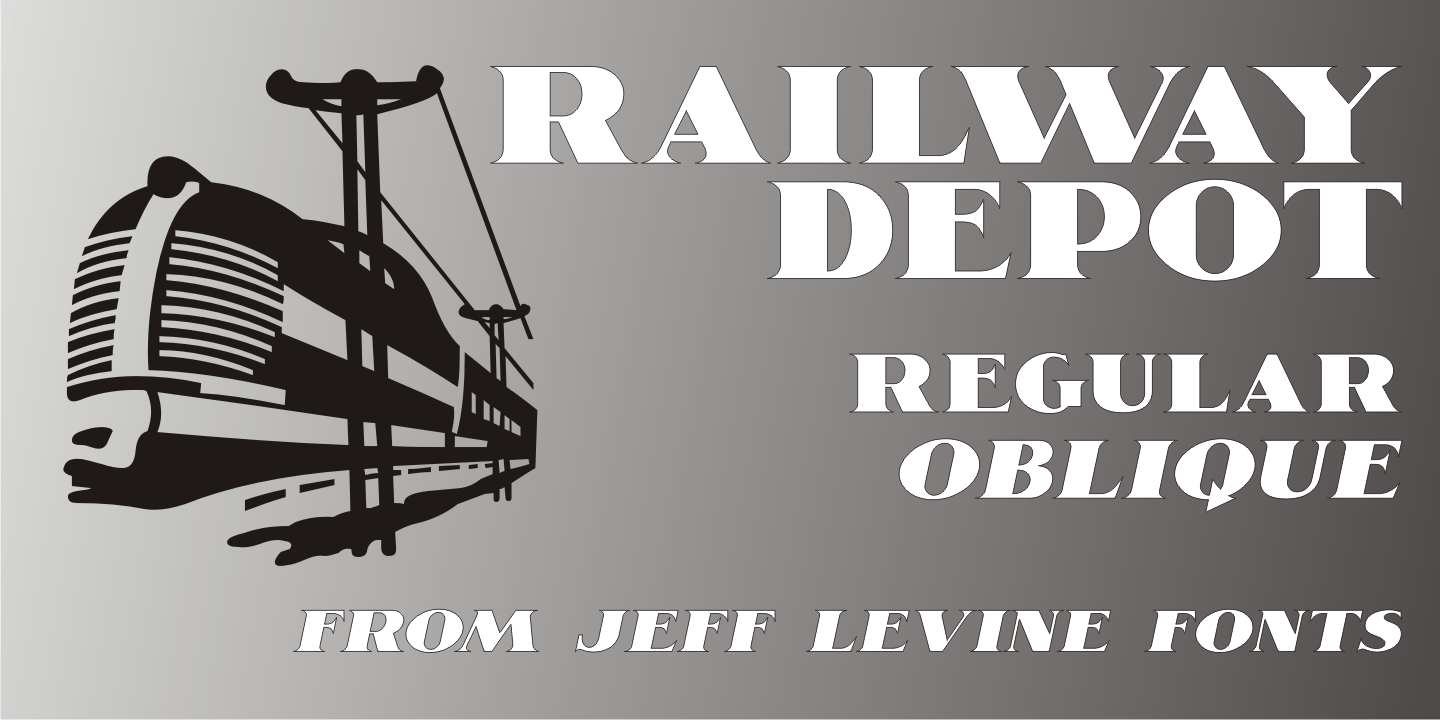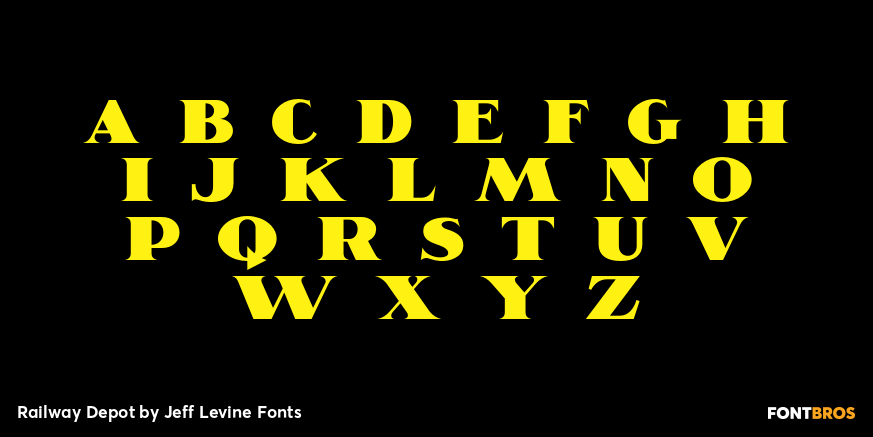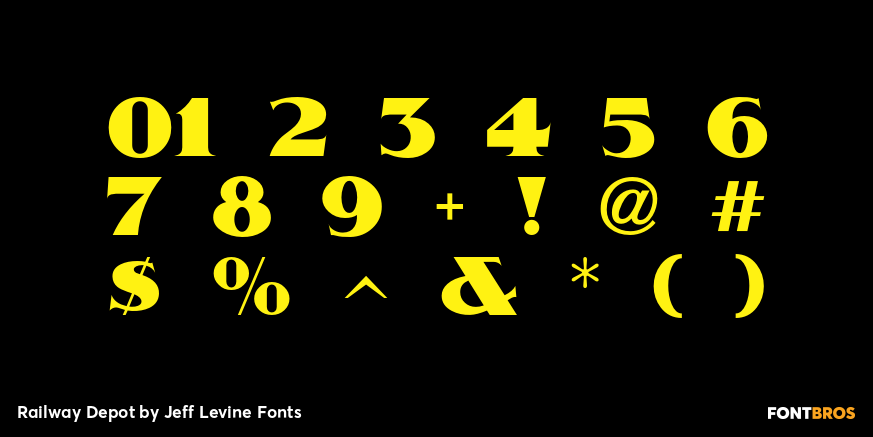
Railway Depot
A bold spur serif design found within the pages of the 1934 French lettering instruction book “L'Art du Tracé Rationnel de la Lettre” provided the inspiration for Railway Depot JNL, which is available in both regular and oblique versions.